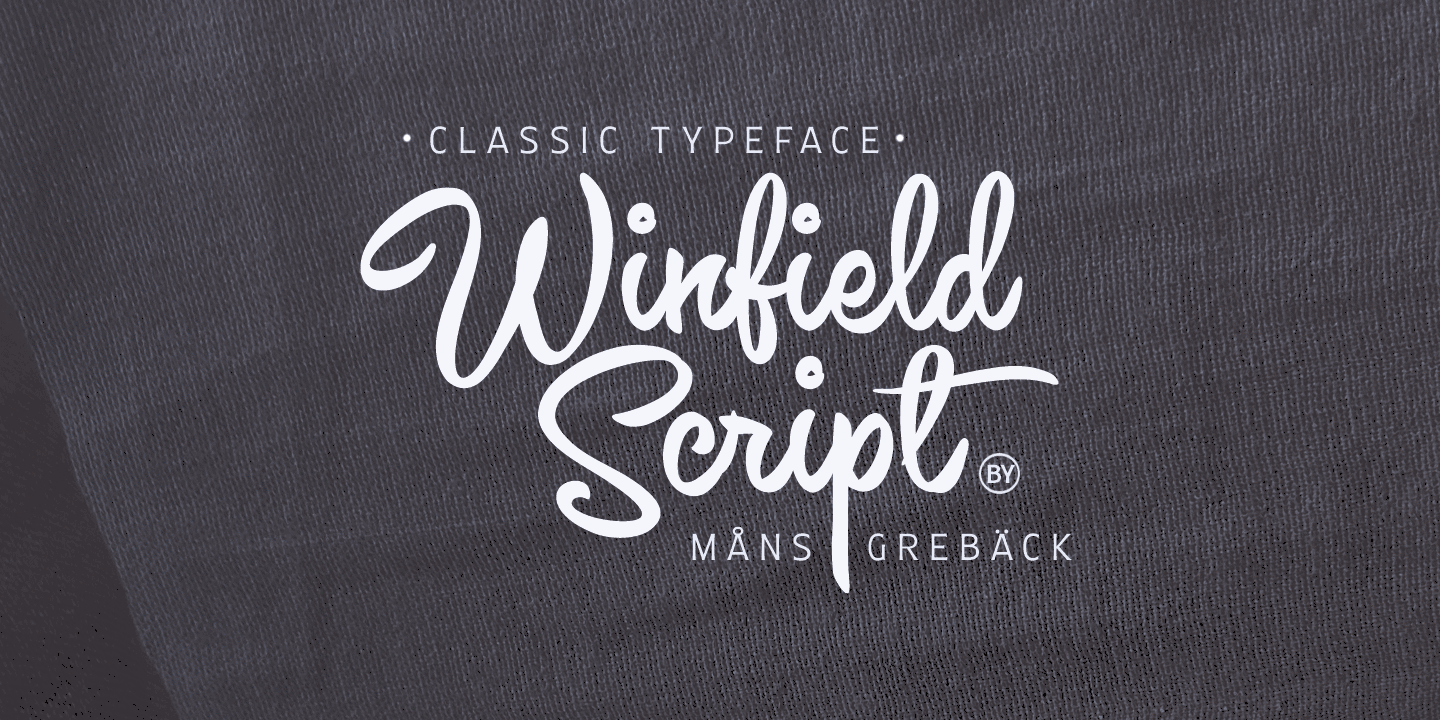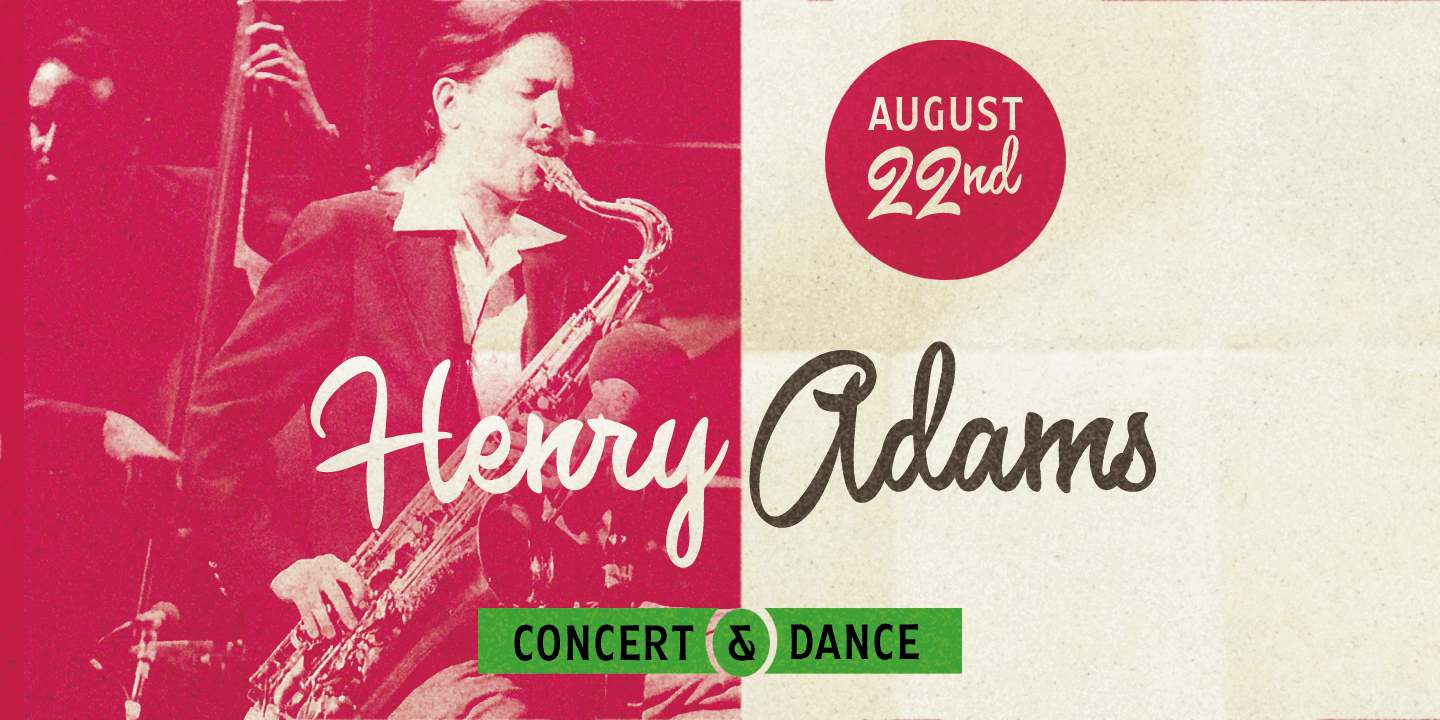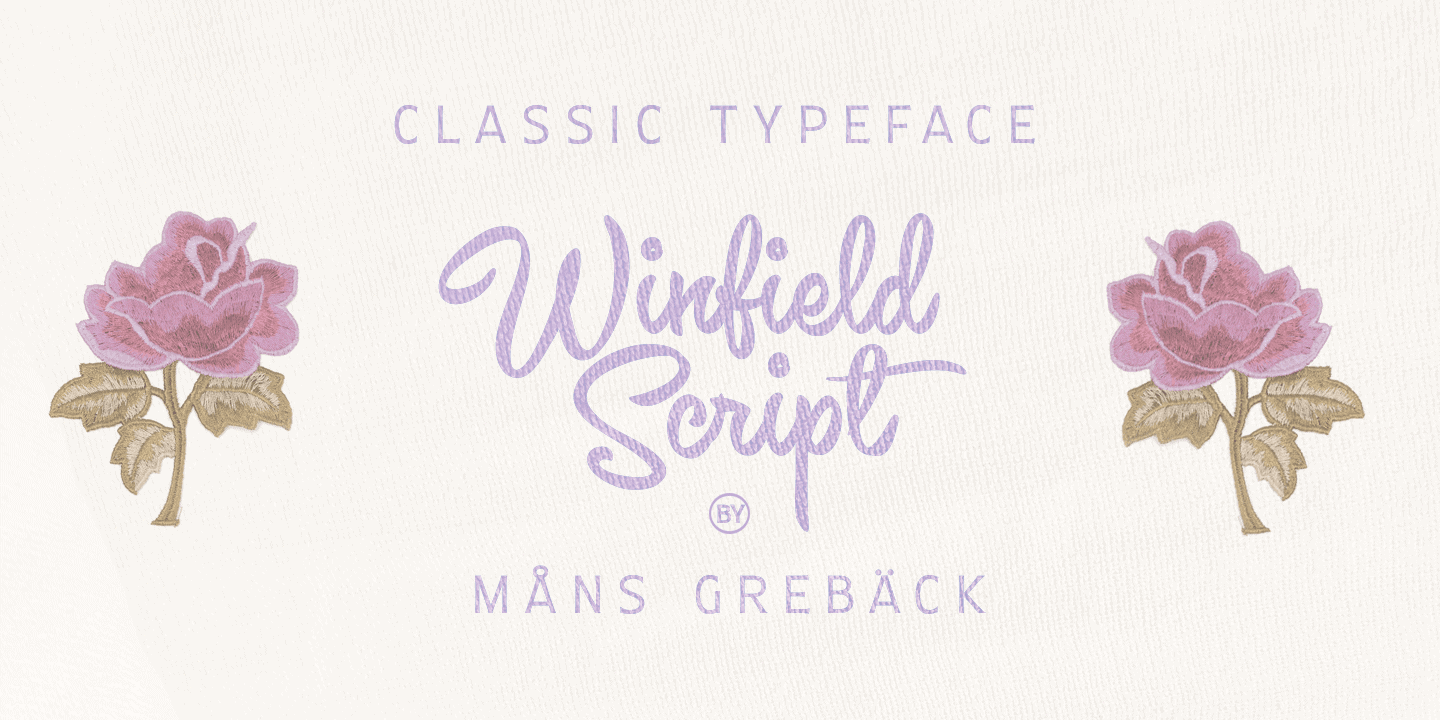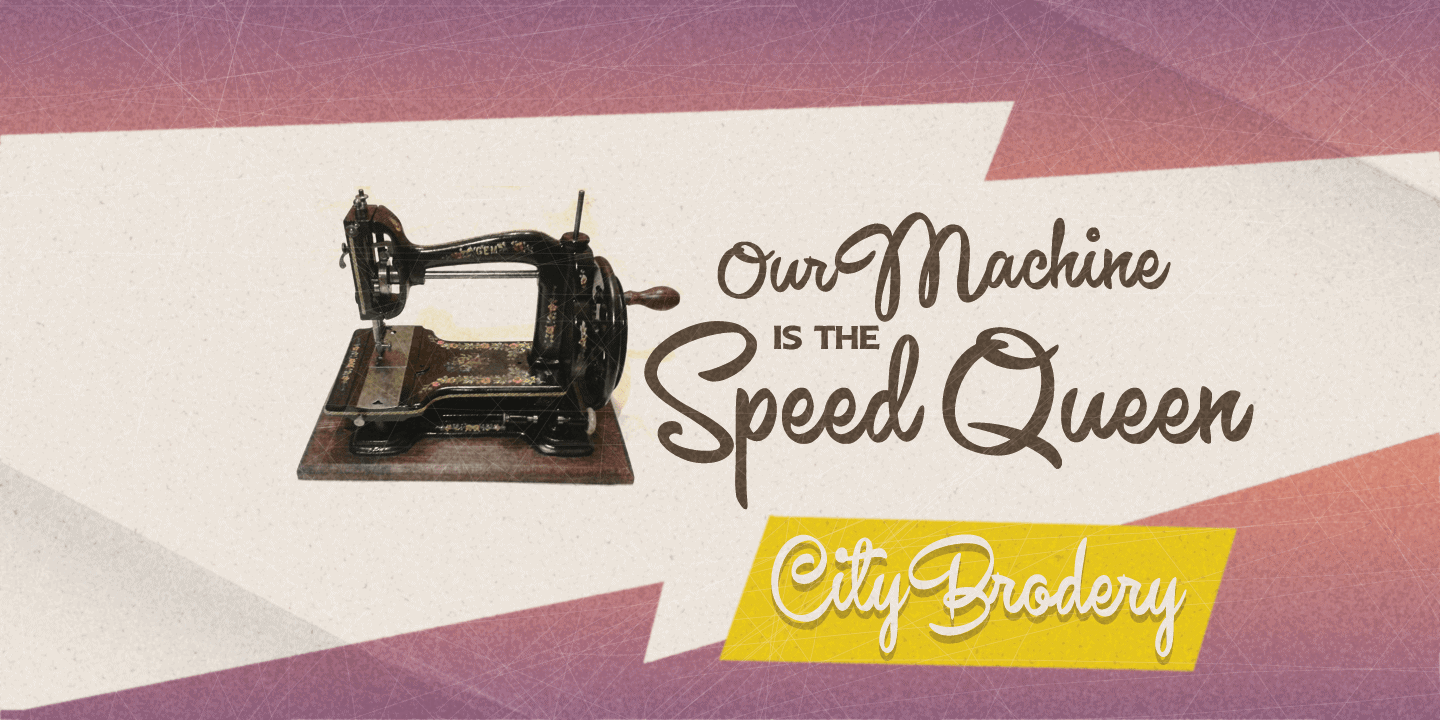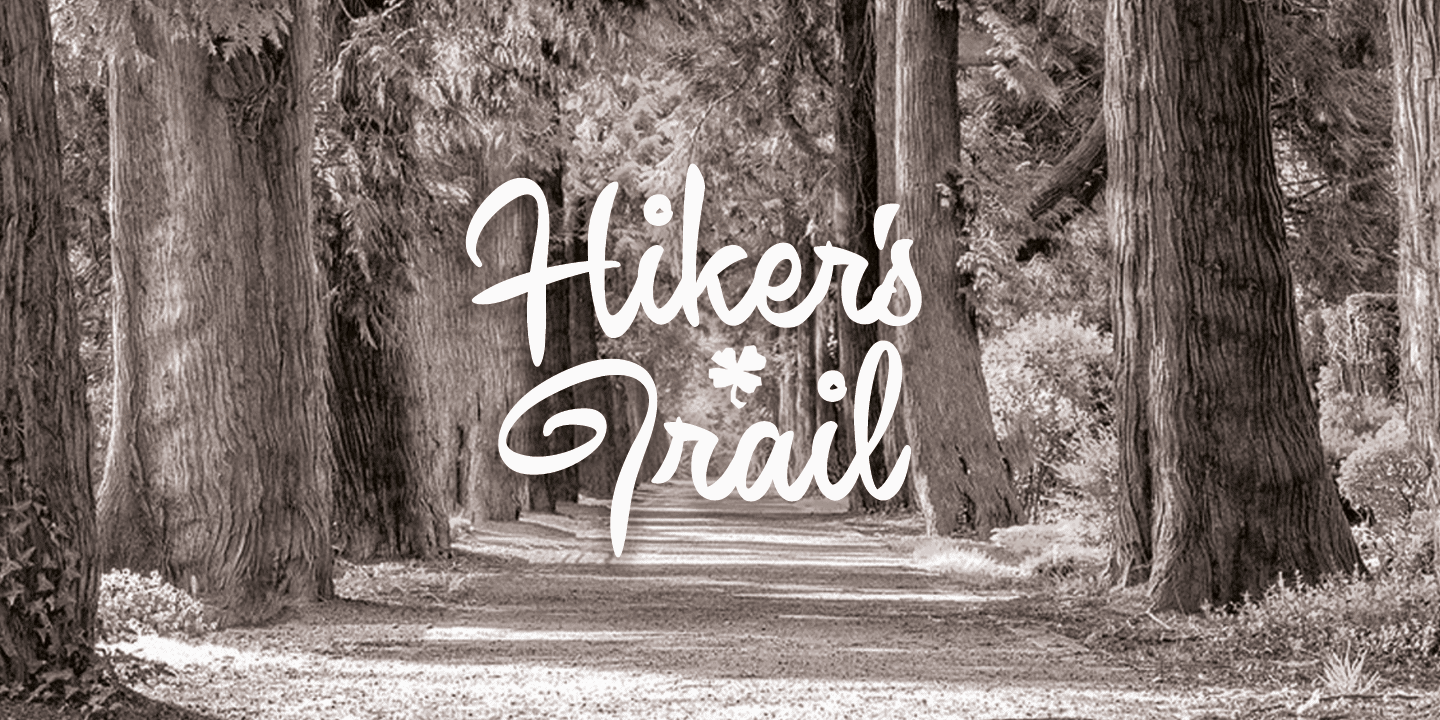
Winfield Script
Winfield Script is a classic handwritten typeface. Insprired by mid-century advertisements and logotypes, this font gives any project a happy vibe. The typeface was drawn and created by Måns Grebäck in 2019.
It contains a wide range of characters and supports a majority of Latin-based languages. Winfield Script also contain multiple stylistic alternate letters and ligatures.